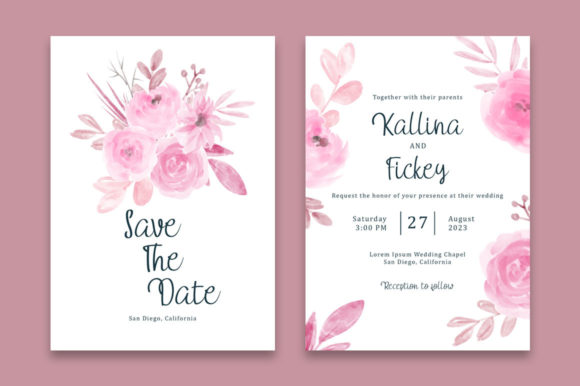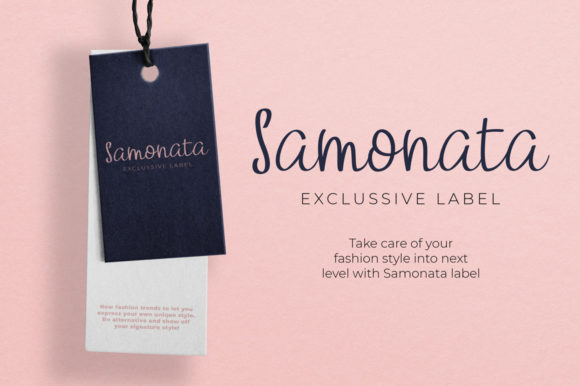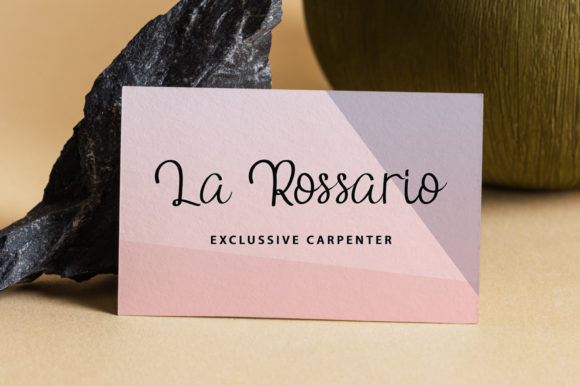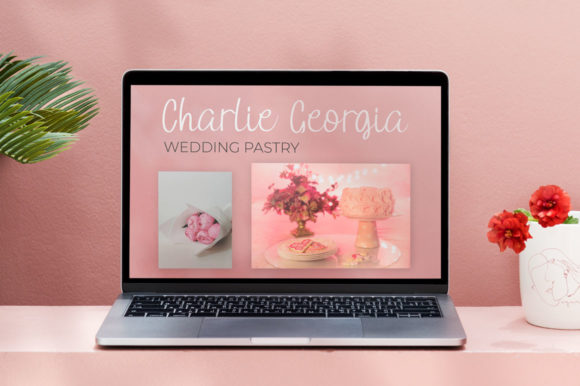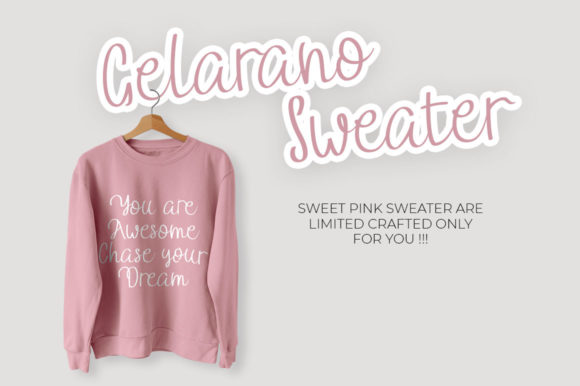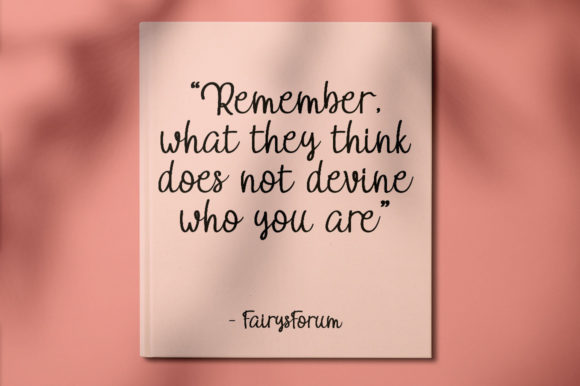
Discover the Elegance of Camomile Font: A Timeless Choice for Designers and Crafters
Are you on the hunt for a font that exudes elegance and sophistication? Look no further than the Camomile Font. This beautiful, flowing handwritten font is described by its elegant touch, making it perfect for a wide range of projects. With its incredibly distinct and timeless style, Camomile Font is sure to capture your heart and inspire your creativity.
What is Camomile Font?
Camomile Font is a type of handwritten font that is characterized by its flowing, cursive script. It is designed to mimic the natural flow of handwriting, with each letter blending seamlessly into the next. The result is a beautiful, elegant font that is perfect for adding a touch of sophistication to any design.
Key Features of Camomile Font
- Elegant Touch: Camomile Font is described by its elegant touch, making it perfect for designs that require a high level of sophistication.
- Flowing Script: The font features a flowing, cursive script that is reminiscent of natural handwriting.
- Distinct and Timeless Style: Camomile Font has an incredibly distinct and timeless style that will not go out of fashion anytime soon.
- Perfect for a Wide Range of Projects: Whether you’re working on a logo, branding materials, or social media graphics, Camomile Font is a versatile choice that will help you create spectacular designs.
Why Choose Camomile Font?
So why should you choose Camomile Font for your next design project? Here are just a few reasons:
- Unique and Eye-Catching: Camomile Font is a unique and eye-catching choice that will help your designs stand out from the crowd.
- Easy to Read: Despite its elegant and flowing script, Camomile Font is easy to read, making it perfect for designs that require a high level of legibility.
- Versatile: Camomile Font can be used for a wide range of projects, from logos and branding materials to social media graphics and more.
- Timeless: With its classic and elegant style, Camomile Font is a timeless choice that will not go out of fashion anytime soon.
How to Use Camomile Font in Your Designs
Using Camomile Font in your designs is easy. Here are a few tips to get you started:
- Pair it with Bold Fonts: Pair Camomile Font with bold fonts for a striking contrast that will make your designs pop.
- Use it for Headings and Titles: Camomile Font is perfect for headings and titles, where its elegant and flowing script can really shine.
- Add it to Your Brand Identity: Consider adding Camomile Font to your brand identity for a unique and sophisticated look.
In conclusion, Camomile Font is a beautiful and elegant handwritten font that is perfect for designers and crafters looking to add a touch of sophistication to their designs. With its flowing script, distinct and timeless style, and versatility, Camomile Font is a great choice for a wide range of projects. So why not give it a try and see how it can elevate your designs?
Whether you’re a seasoned designer or just starting out, Camomile Font is a great addition to your font library. Its unique and eye-catching style is sure to inspire your creativity and help you create spectacular designs that will leave a lasting impression.
So fall in love with the elegance of Camomile Font and use it to create designs that are truly timeless.